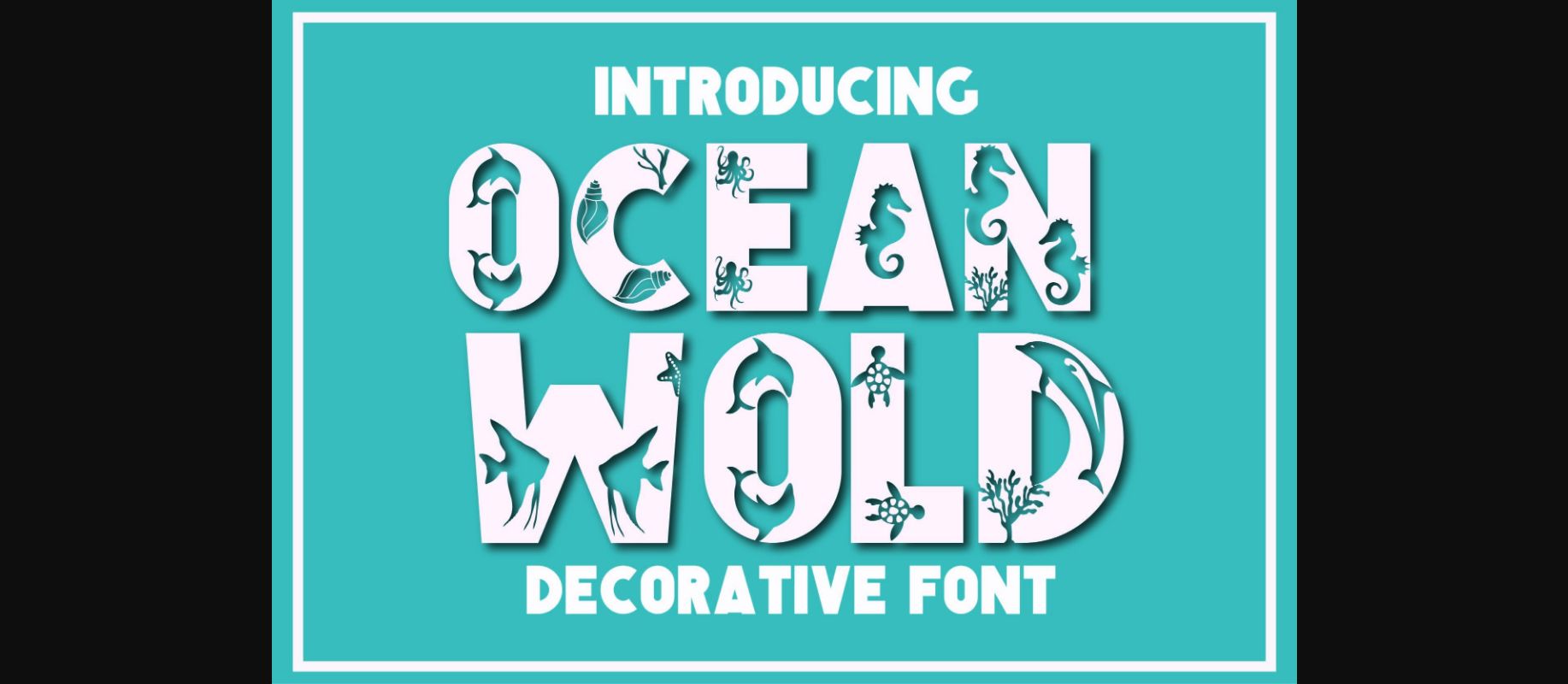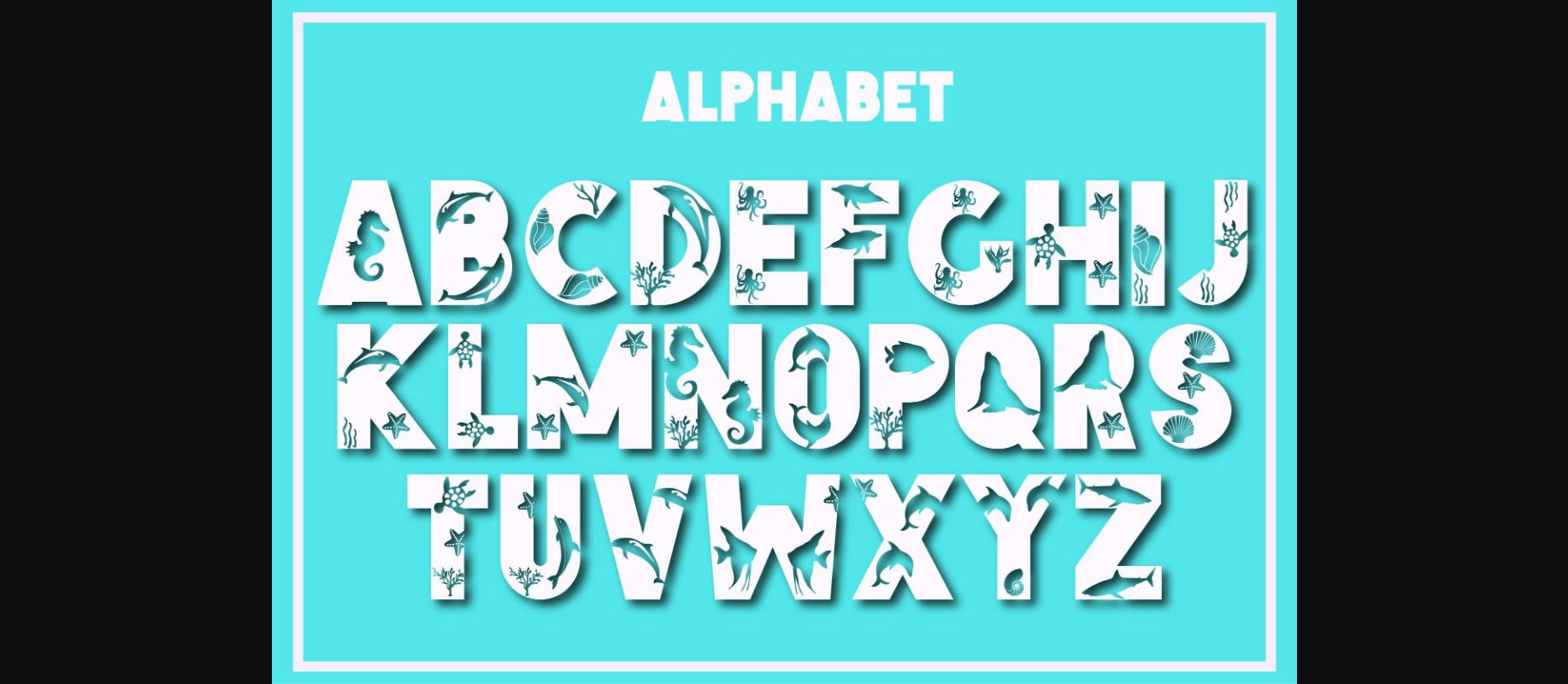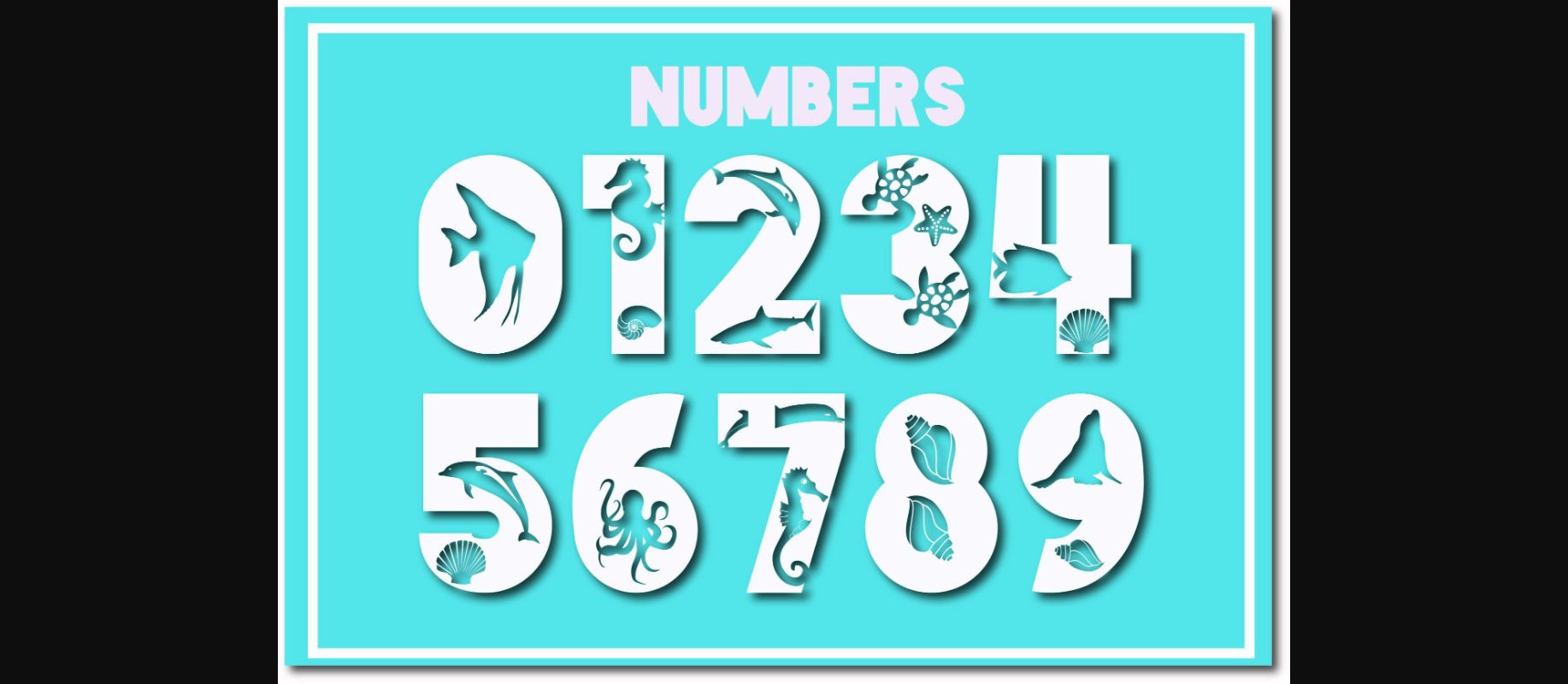
HomeDecorative FontsOcean Wold Font Decorative Fonts Ocean Wold Font FacebookXPinterestWhatsApp 1 of 5 ... Ocean Wold Font Poster 2... Ocean Wold Font Poster 3... Ocean Wold Font Poster 4... Ocean Wold Font Poster 5... About Ocean Wold Font Ocean Wold is a cute and adorable decorative font. Add it to each of your party invitations, swimming gathering, or pretty much any design that requires a touch of youth and joy. DOWNLOAD NOW People also explored Renin Dreams Font Lilith Script Font Blossom Split Font Equinox Font Anthonyela Font Back to School Font Gingers Font Hamirez Font 369 0 TagsOcean Wold Font Previous articleHalloween on Fire FontNext articleUnderwater World Font LEAVE A REPLY Cancel reply Comment: Please enter your comment! Name:* Please enter your name here Email:* You have entered an incorrect email address! Please enter your email address here Website: Save my name, email, and website in this browser for the next time I comment. Personal Use Free BD Alm Personal Use Free Read more about this font Genres Personal Use Free Read more about this font Bamboomoe Personal Use Free Read more about this font Mounets Personal Use Free Read more about this font BLOG Fonts That Capture the Spirit of New York City New York City is more than just a place—it’s an experience, a rhythm, a visual language... Using Fonts in Digital Marketing: Tips to Strengthen Your Brand Identity Top 7 Google Fonts Alternatives for Faster and Privacy-Friendly Web Design (2025) How to Cut Any Font on Cricut: Convert a Font to SVG (Free)